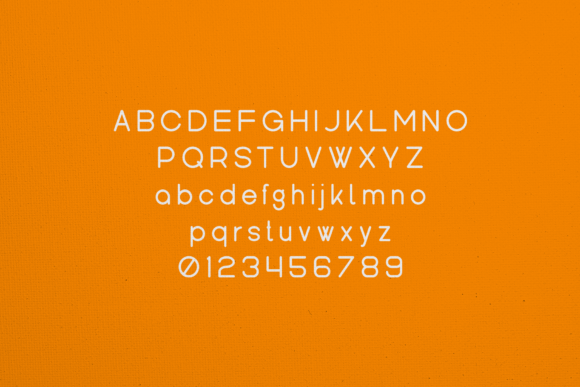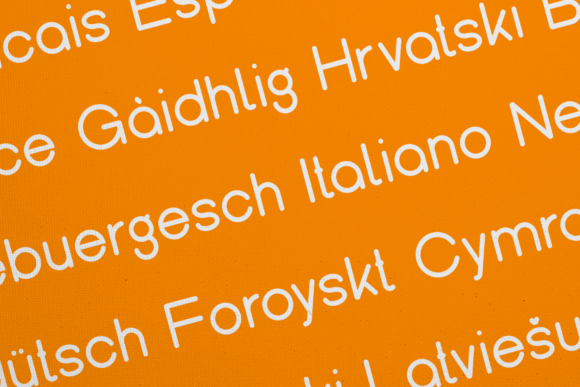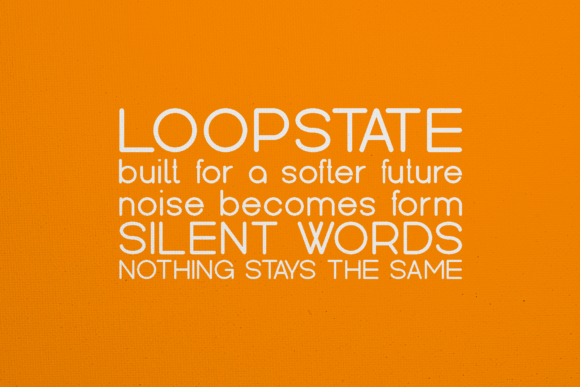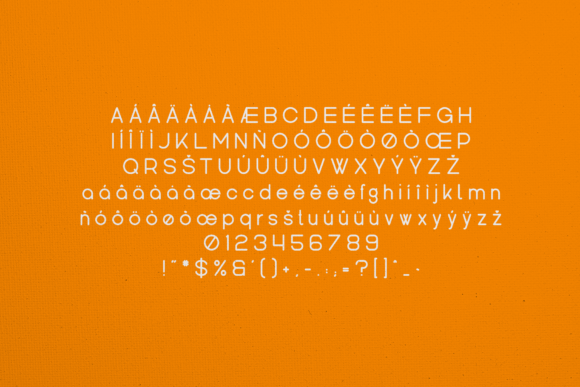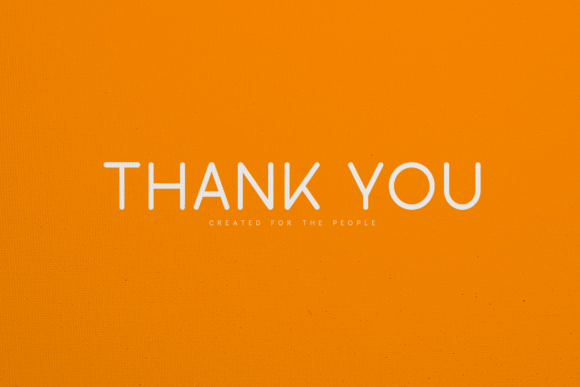
Embracing the Soft Side of Design: Introducing Kindel Rounded Font
As designers, we’ve all had those moments when we’re stuck on a project, searching for the perfect font to convey the tone and personality of our brand. It’s like searching for the missing piece of a puzzle – until we find it, we can’t move forward. That’s exactly what happened when I stumbled upon the Kindel Rounded font. Its soft, rounded edges and perfectly circular counters instantly caught my attention, and I knew I had to learn more.
The Kindel Rounded font is more than just a design element – it’s a tool that can elevate the user experience and communicate a brand’s values. Its human-centric approach makes it an excellent choice for user interfaces, wellness brands, and sustainable products. With its high readability and consistent, clean look, the Kindel Rounded font is a valuable asset for designers who want to create a sense of safety and ease in their designs.
Whether you’re designing for a lifestyle blog, organic food label, or modern stationery, the Kindel Rounded font is an excellent choice. Its versatility and “zen” aesthetic make it a must-have in any designer’s toolkit.
Kindel Rounded Font Key Features
- Font Family: Kindel Rounded is a sans-serif font family designed for digital use.
- Unique Characteristics: Kindel Rounded features rounded corners, friendly and approachable feel, making it suitable for body text and display use.
- Font Weight: Available in various weights, including Light, Regular, Medium, Bold, and Black, offering flexibility for different design needs.
Kindel Rounded Font Review
Overall, I think Kindel Rounded Font is a solid choice for designers looking for a clean and approachable sans-serif font. Here are some of its strengths: ✨
- Legibility: Kindel Rounded Font is highly legible, making it perfect for body text, headings, and even signage.
- X-height: The font’s x-height is well-balanced, contributing to its overall readability and making it suitable for long blocks of text.
- Neutral tone: The font’s neutral tone makes it easy to pair with various color schemes and design styles.
However, like any font, Kindel Rounded Font has its limitations: ⚠️
- Lack of personality: The font’s rounded edges and lack of distinctive features might make it seem unoriginal or boring to some designers.
- Not ideal for headlines: While Kindel Rounded Font is great for body text, it might not be the best choice for headlines or titles due to its lack of visual impact.
Overall, Kindel Rounded Font is a reliable choice for designers who prioritize readability and simplicity. While it may not be the most exciting font, it gets the job done and is easy to work with.
Getting the Most Out of Kindel Rounded Font
To get the most out of the Kindel Rounded Font, use it for:
- Headings and titles to add a touch of elegance.
- Body text to create a cohesive and professional look.
- Designing logos, branding materials, and marketing materials.